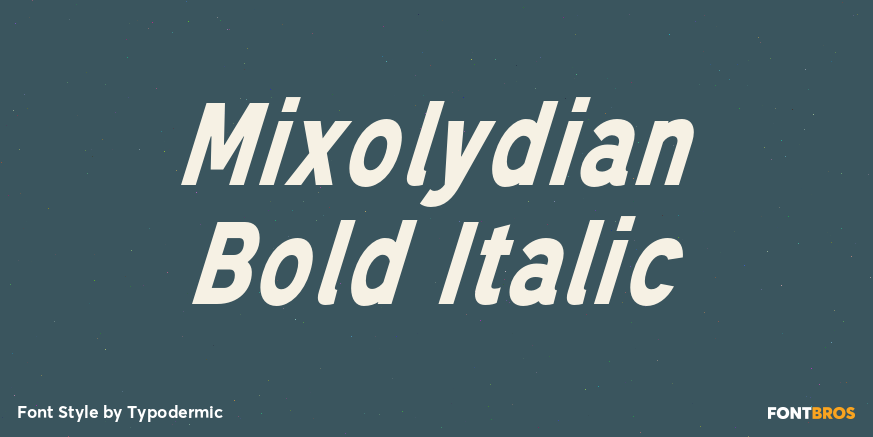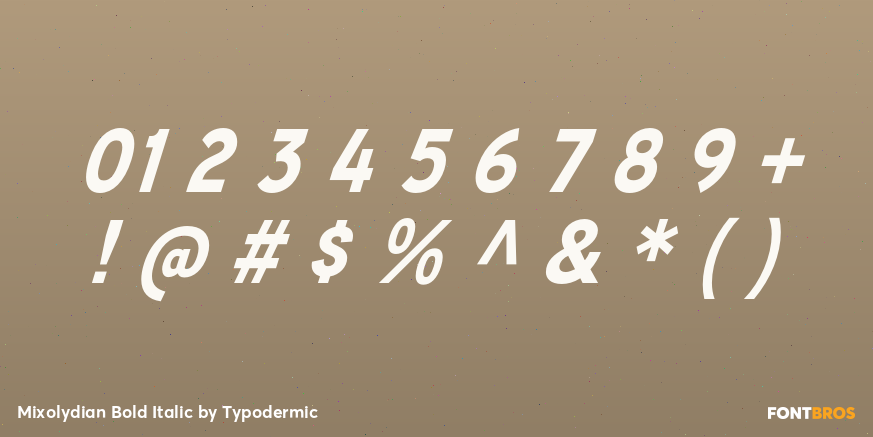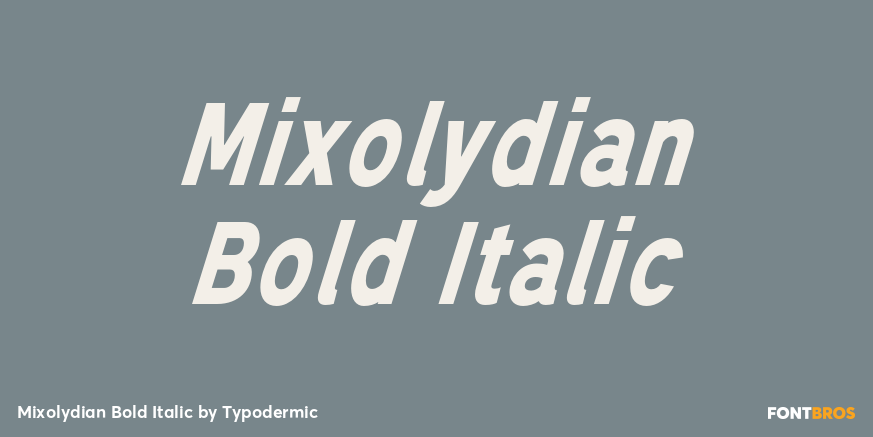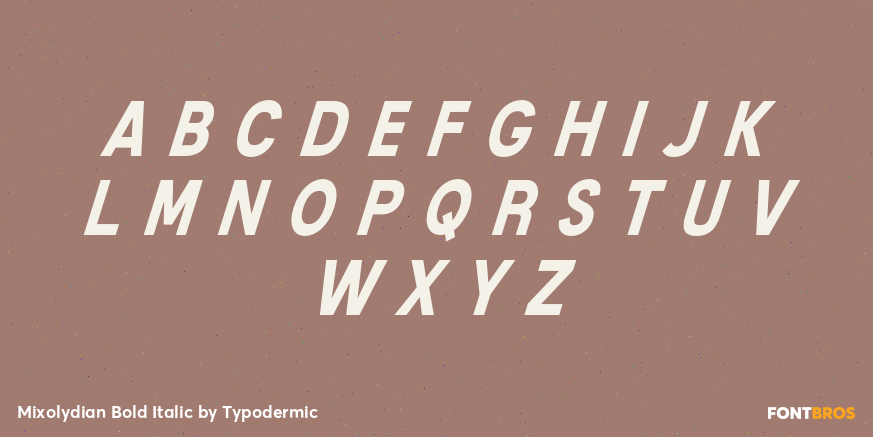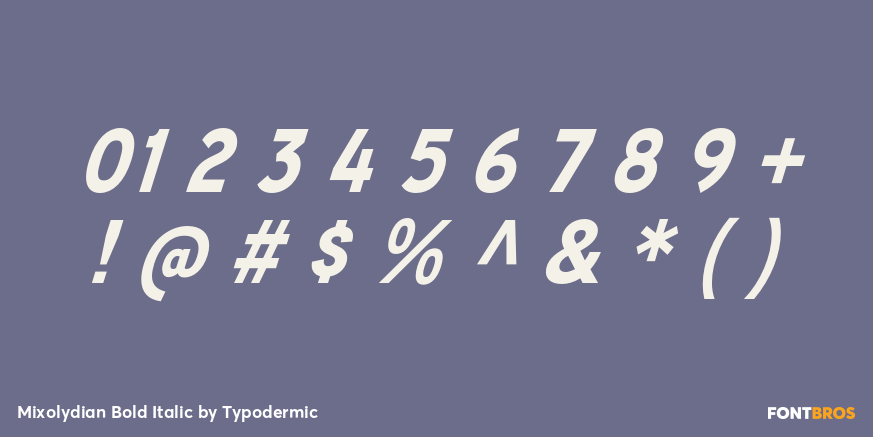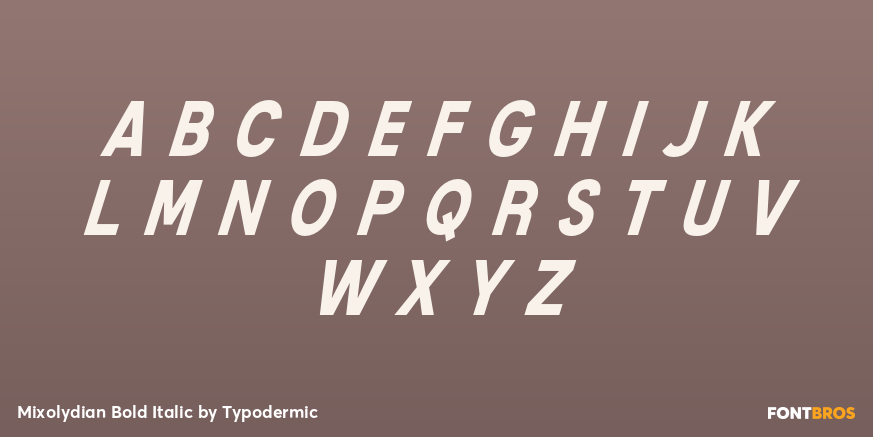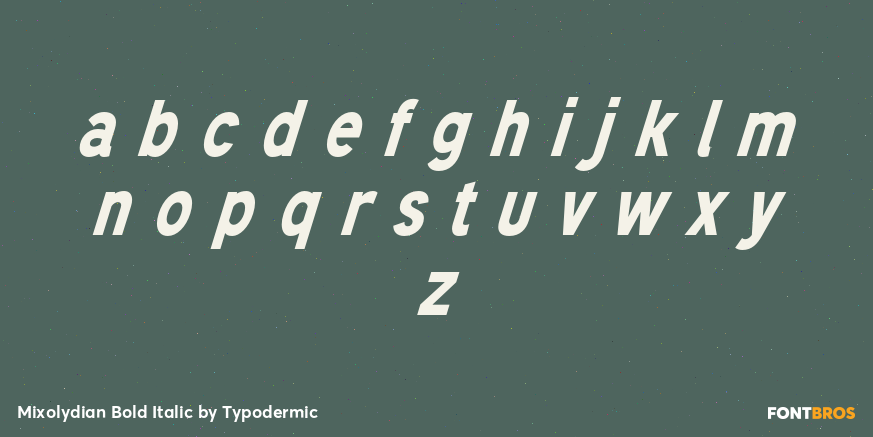
Mixolydian Bold Italic
Buy NowMixolydian is the typographic equivalent of a grey work jumpsuit or a white lab coat. Its forms draw on American road-sign lettering and drafting templates, sources designed to communicate information rather than advertise themselves. The result is a utilitarian sans-serif with blunt geometry, slightly uneven proportions, and the matter-of-fact rhythm of something issued by a department, specified by an engineer, or labeled for inspection.
That character suits organizations that need to look procedural, competent, and standardized. Industrial measurement equipment, factory automation, machine vision, semiconductor production, building controls, environmental monitoring, and municipal infrastructure all generate typography that moves between physical equipment and information systems. Mixolydian can carry model numbers on enclosures, operating instructions beside control panels, headings in service manuals, labels in diagrams, and status information on monitoring dashboards without changing visual language between the machine and its documentation.
The same quality works particularly well for science-forward supplements and nutraceuticals. Longevity products, mineral complexes, sports-recovery formulas, microbiome products, electrolyte systems, and clinical nutrition often have to organize concentrations, variants, ingredients, dosage information, and technical claims while establishing scientific credibility. Mixolydian suits bottles and cartons, sachet systems, formulation charts, ingredient matrices, comparison tables, practitioner literature, and technical product pages. It pushes a product line toward laboratories, formulations, and controlled processes rather than cosmetics or lifestyle wellness.
Ingredient suppliers, analytical laboratories, contract manufacturers, pharmaceutical production companies, and formulation specialists can use the same visual language for specification sheets, testing reports, sample kits, technical presentations, equipment interfaces, and trade-show graphics. Mixolydian is especially useful when one organization spans the factory floor, laboratory, control room, field installation, and corporate office.
The lighter weights can take on the restrained quality of technical drawing annotations, analytical interfaces, and research graphics, while the heavier styles provide the sturdiness needed for equipment identifiers, section headings, facility graphics, and product names. Across the family, Mixolydian retains enough of its highway-and-drafting ancestry to feel built for a purpose, while its lowercase and range of weights let it function far beyond imitation signage.